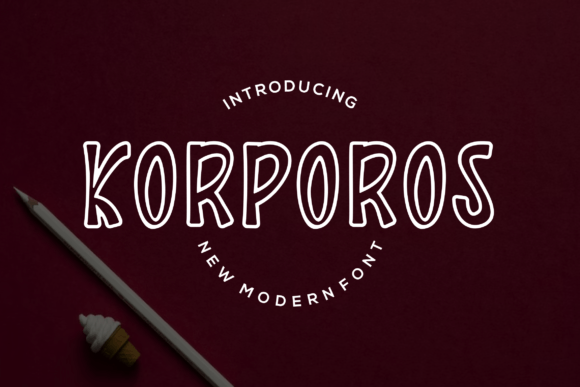
Embark on a visual odyssey with Korporos Font, a captivating display font that exudes elegance, class, and a touch of modern flair. With its graceful outlines and meticulously crafted characters, Korporos promises to elevate your creative projects to new heights of sophistication.
Immerse yourself in a world of endless possibilities with Korporos Font. Whether you're a seasoned designer or just starting your creative journey, this versatile font is your perfect companion. Effortlessly create eye-catching posters that command attention, presentations that leave a lasting impression, and logos that exude professionalism and style.
Unleash your imagination and let Korporos Font take center stage in your signature designs, stationery, and wedding invitations. Allow your words to dance gracefully on the page, adorned with the timeless beauty of Korporos's meticulously crafted letterforms.
Elevate your branding and packaging designs, making your products stand out from the crowd. With Korporos Font, your brand's visual identity will radiate elegance and sophistication, leaving a lasting impression on your customers' minds.
Korporos Font is not just a collection of letters; it's an art form, a symphony of visual harmony. Its carefully balanced strokes and rhythmic curves create a visual masterpiece that will captivate your audience and leave them in awe.
Don't settle for ordinary fonts. Embrace the extraordinary with Korporos Font. Transform your creative visions into reality and embark on a journey of visual storytelling that will leave a lasting impact on your audience.